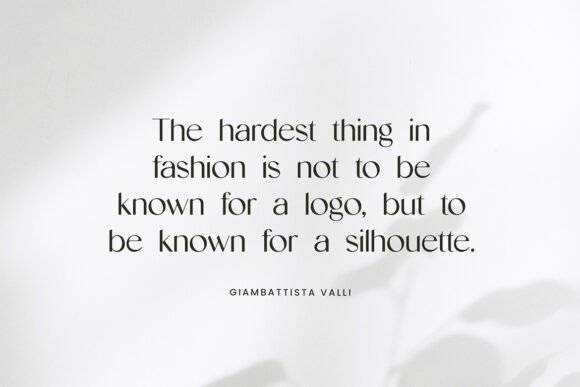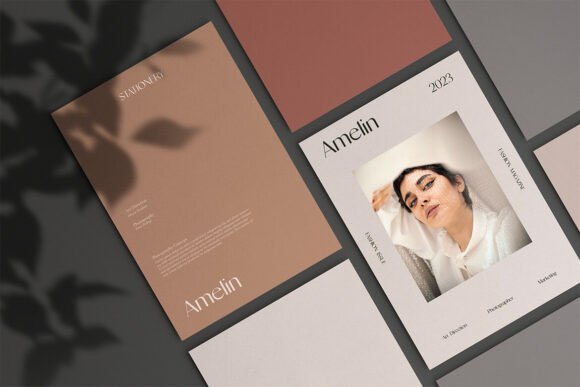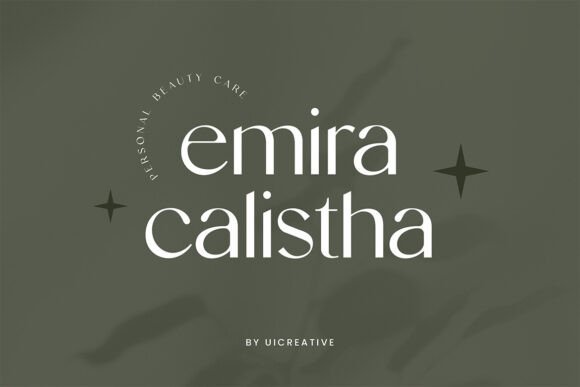
Elaine Kinandhita Classy Sans Serif Font.
The modern display font feels beautiful classy, elegant, and stylish This font is ideally suited for a wide variety of projects, such as signature, stationery, logo, wedding, typography quotes, magazine or book covers, website headers, branding, and more.
Elaine Kinandhita Font offers exceptional quality and versatility, making it a valuable addition to your design toolkit. Whether you’re creating for personal projects or commercial use, Elaine Kinandhita Font delivers professional results.